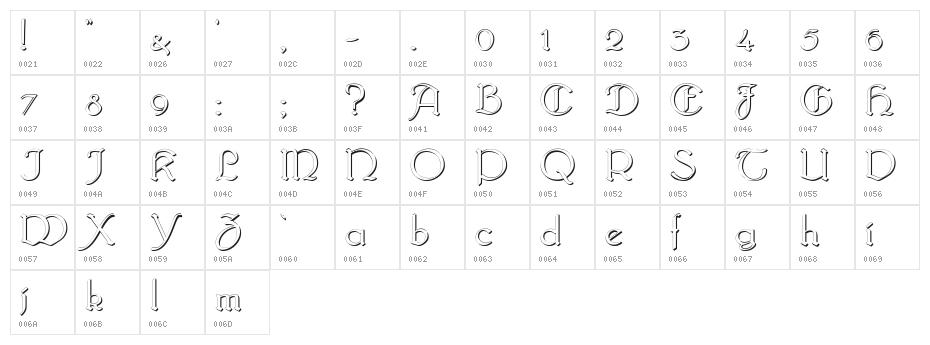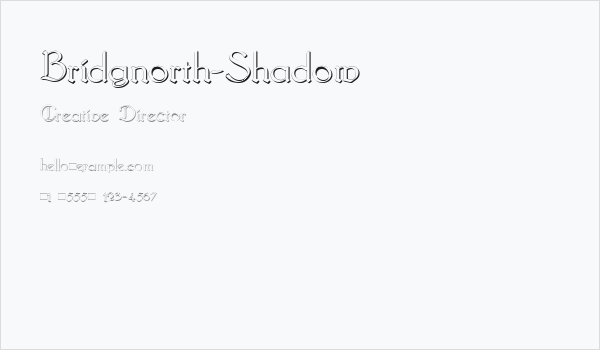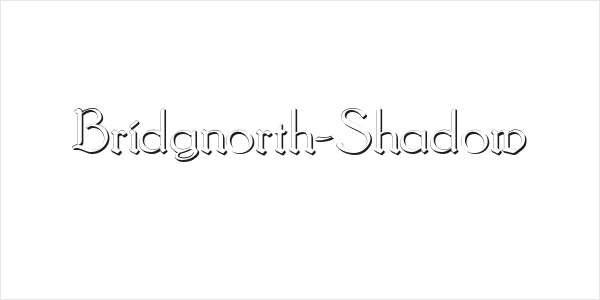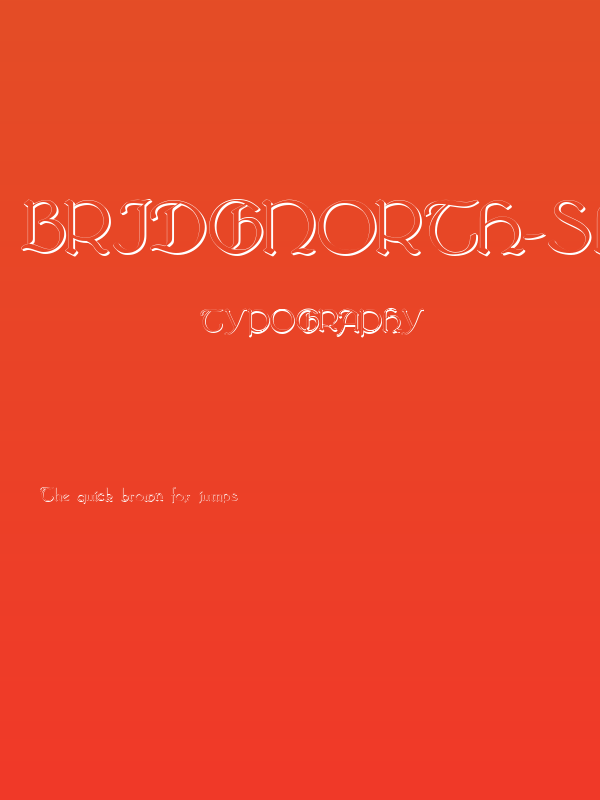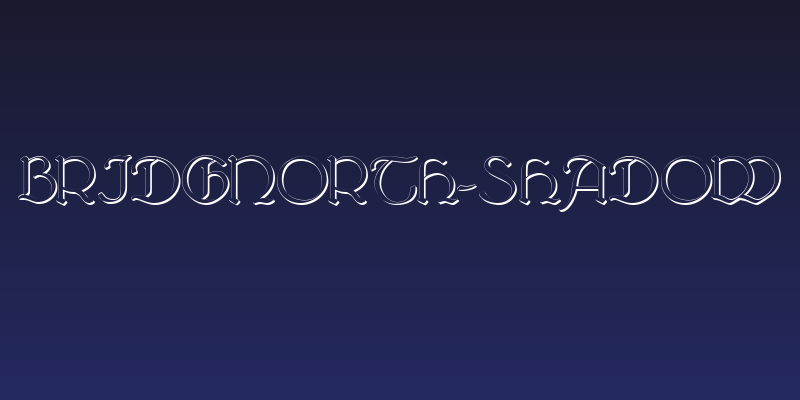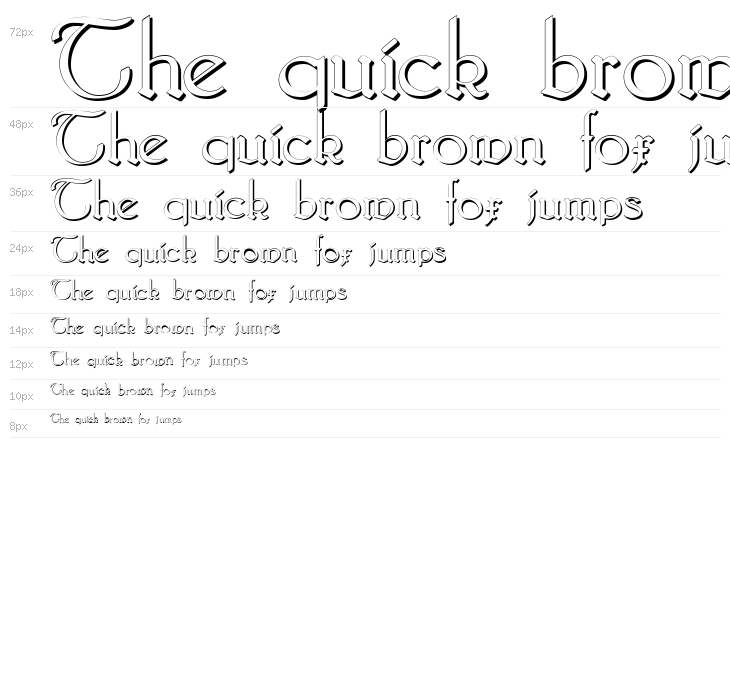
Bridgnorth-Shadow Font
Bridgnorth-Shadow Description
This font features a distinctive shadow effect that gives it a three-dimensional appearance, making it stand out on any page. The characters are elegantly crafted with a blend of classic and modern elements, offering a unique twist on traditional serif styles. The uppercase letters exhibit a bold presence with intricate curves and sharp edges, while the lowercase letters maintain a consistent flow with a slightly more subdued appearance. Numbers and special characters are equally well-designed, ensuring versatility across various applications. The font's shadow effect adds depth and dimension, making it ideal for eye-catching headlines and titles.
| Proposed Projects | Ideal for branding, posters, book covers, and any project requiring a striking, dimensional typeface. |